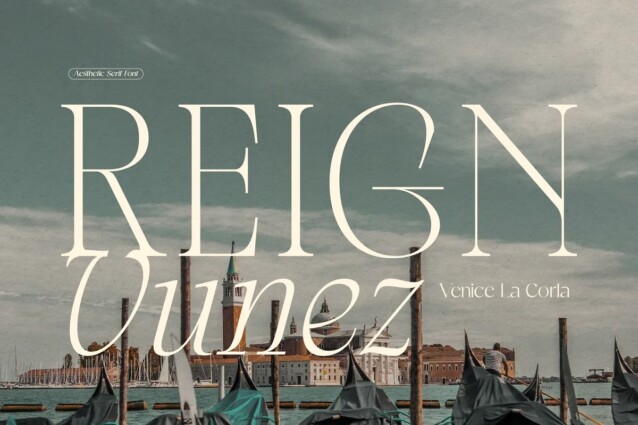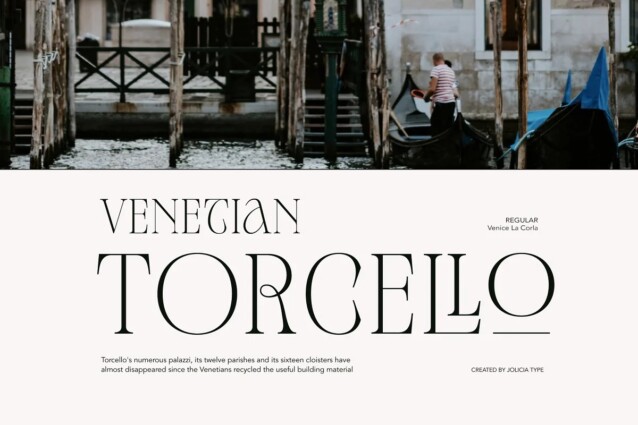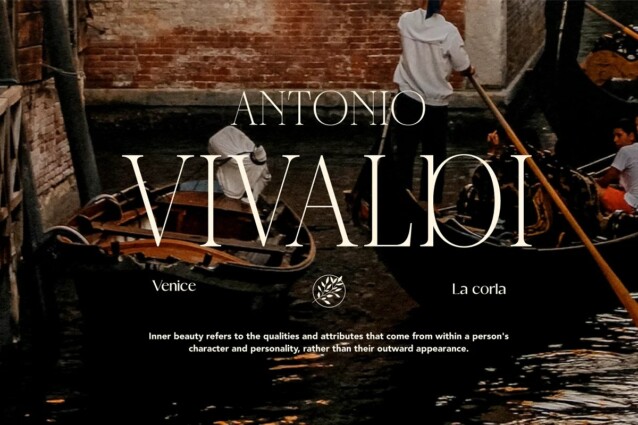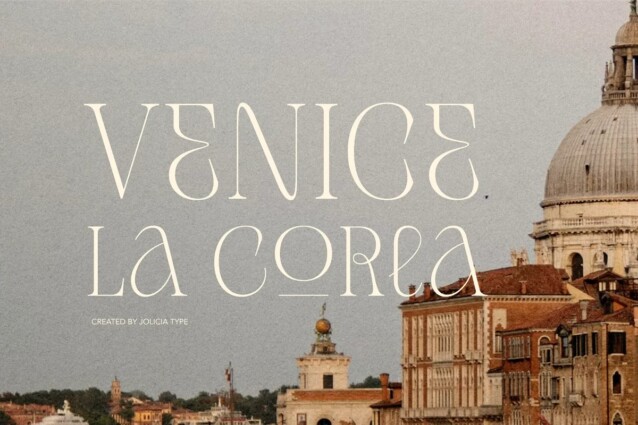
Venice La Corla Font is a multi-faceted serif display typeface that embodies timeless elegance and sophistication. This typeface exudes a sense of refinement and grace that is perfect for projects where a touch of classic charm is required. Each character in Venice La Corla is meticulously crafted to provide a harmonious balance between its serifs and elegant lines, resulting in a truly remarkable typeface.